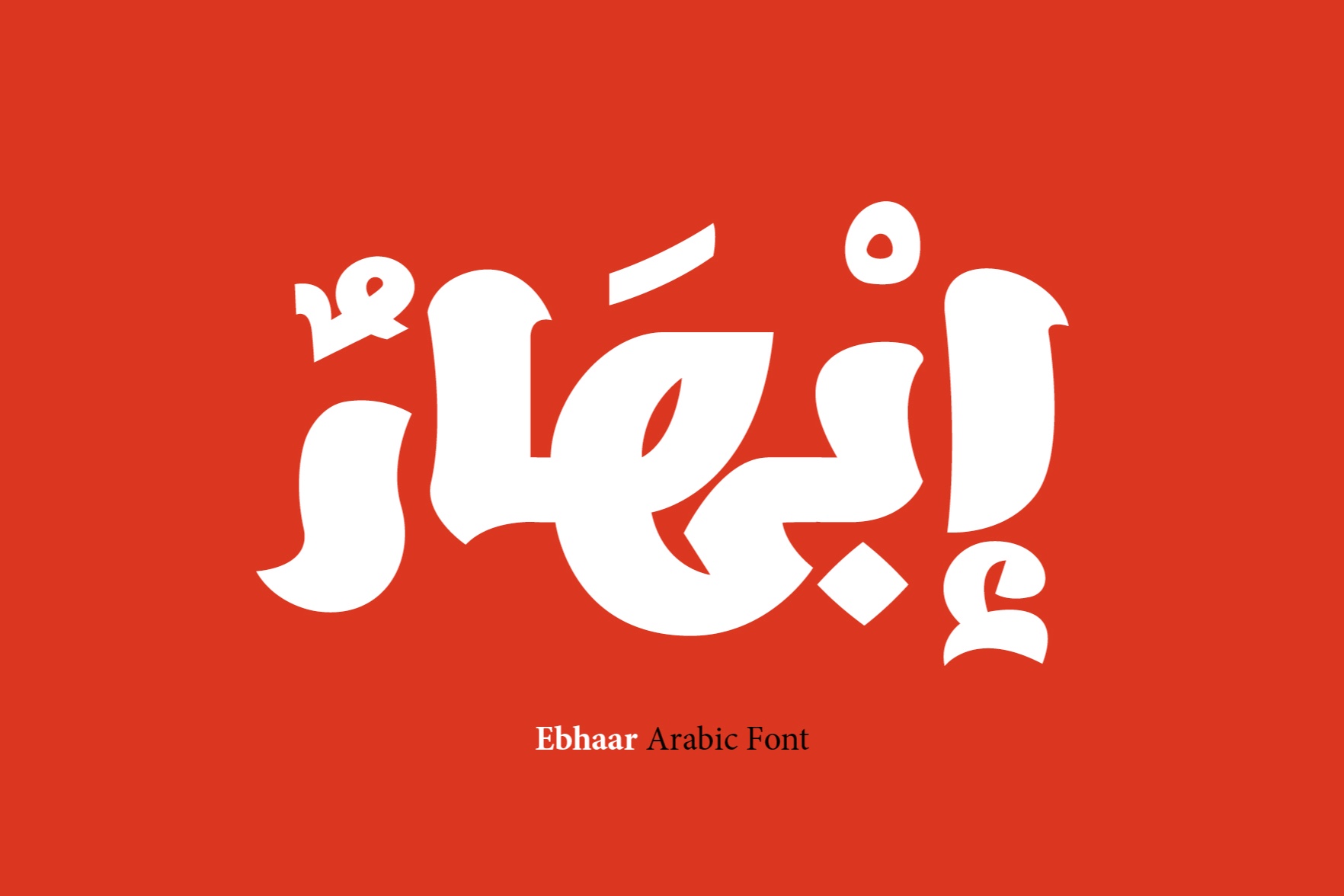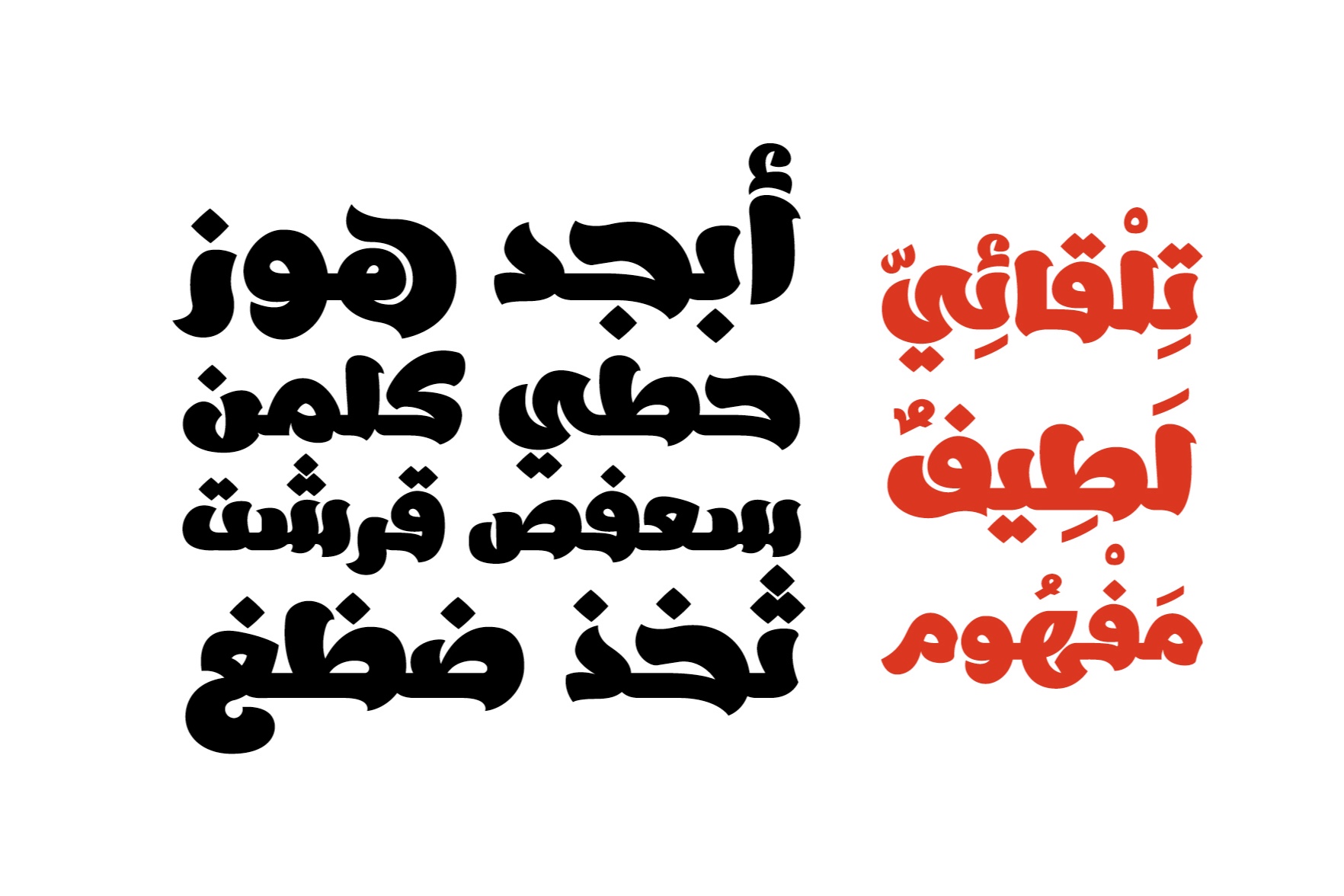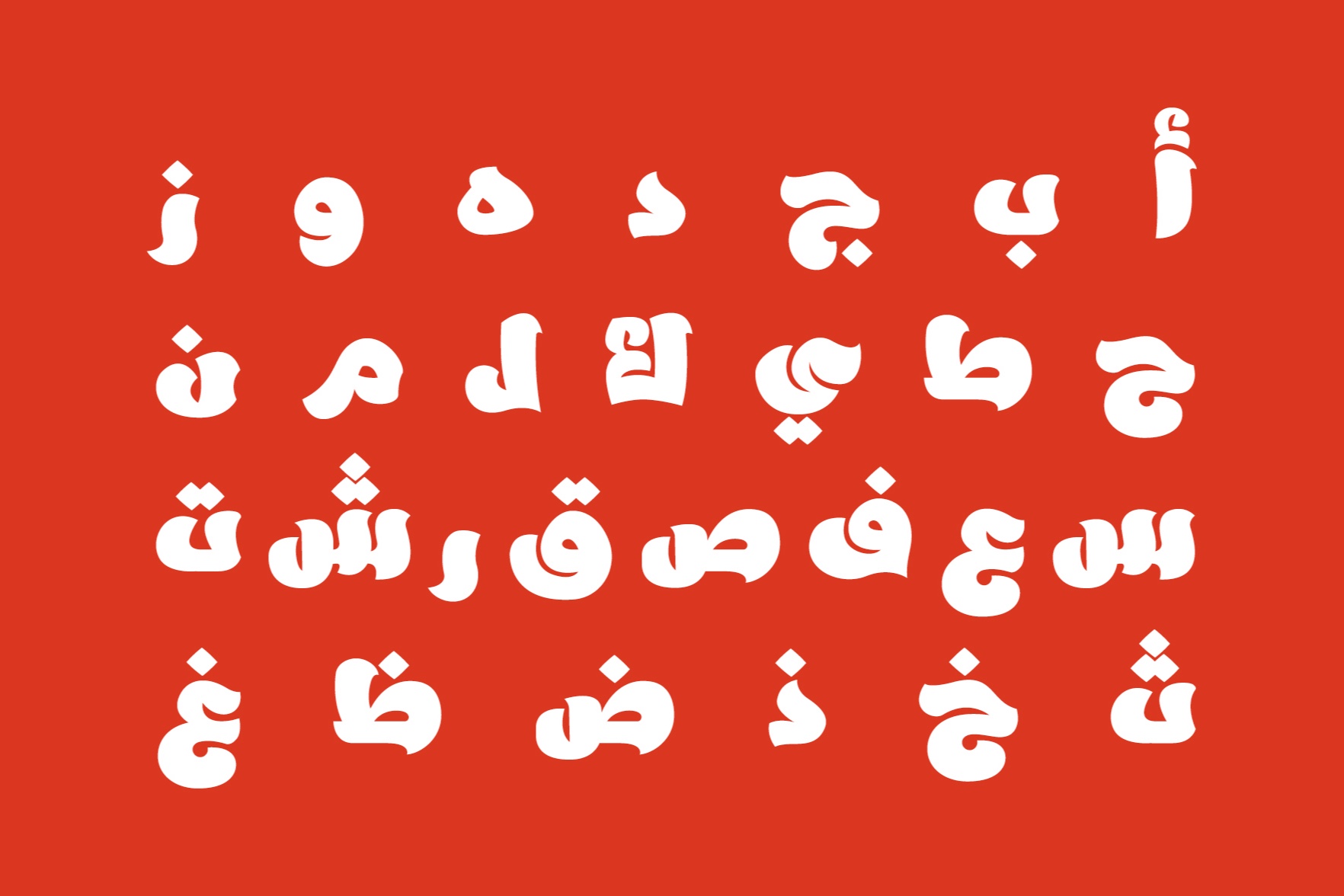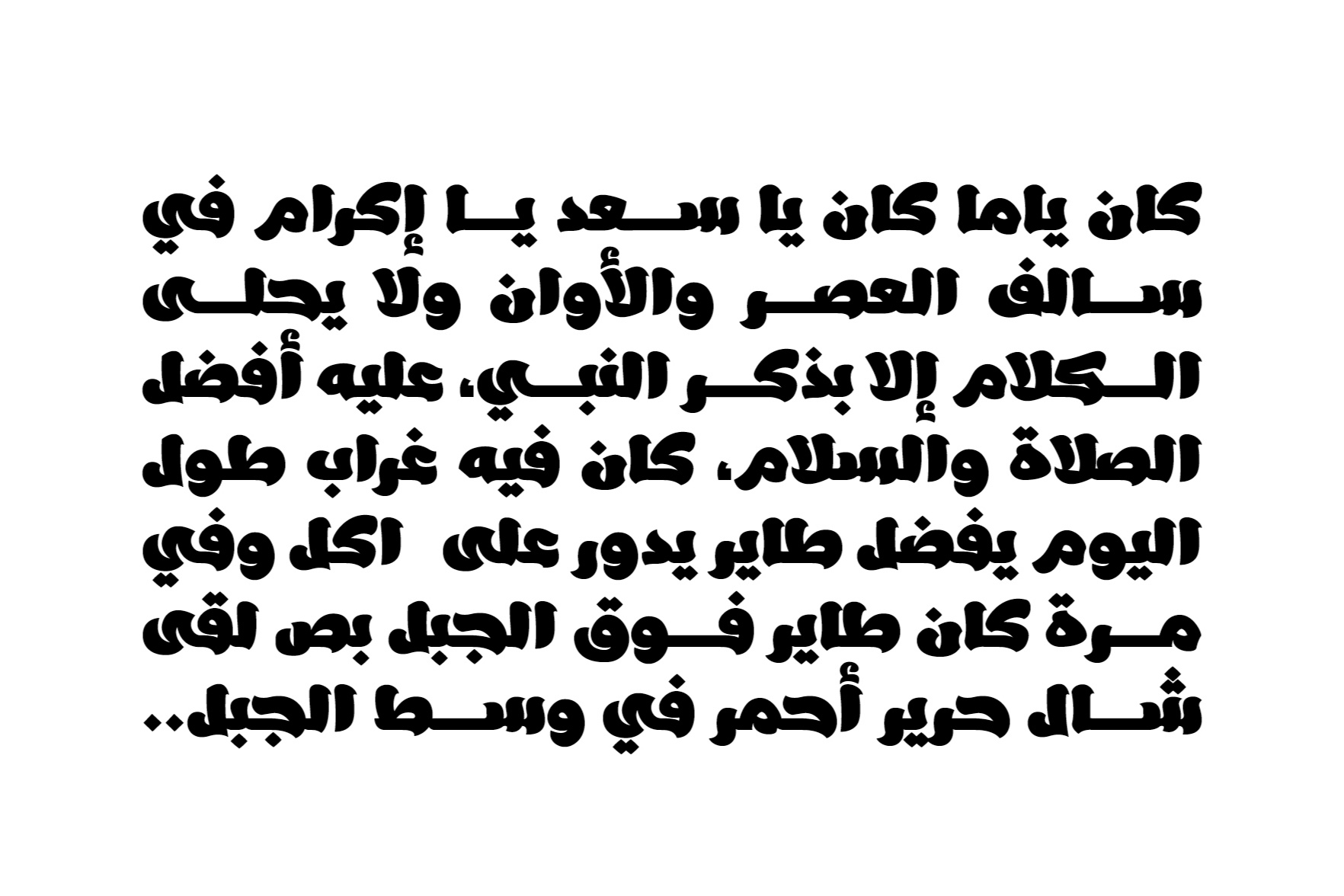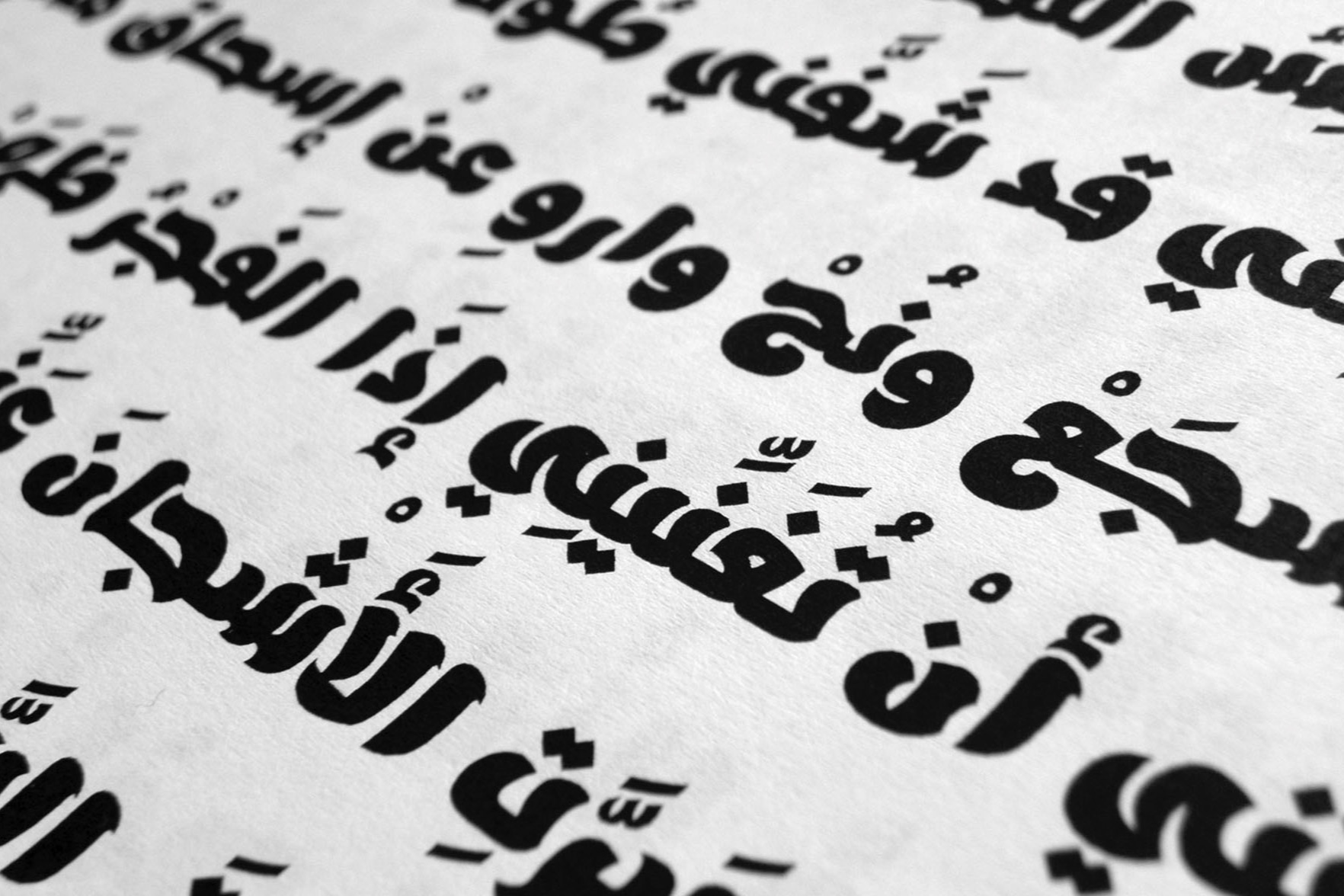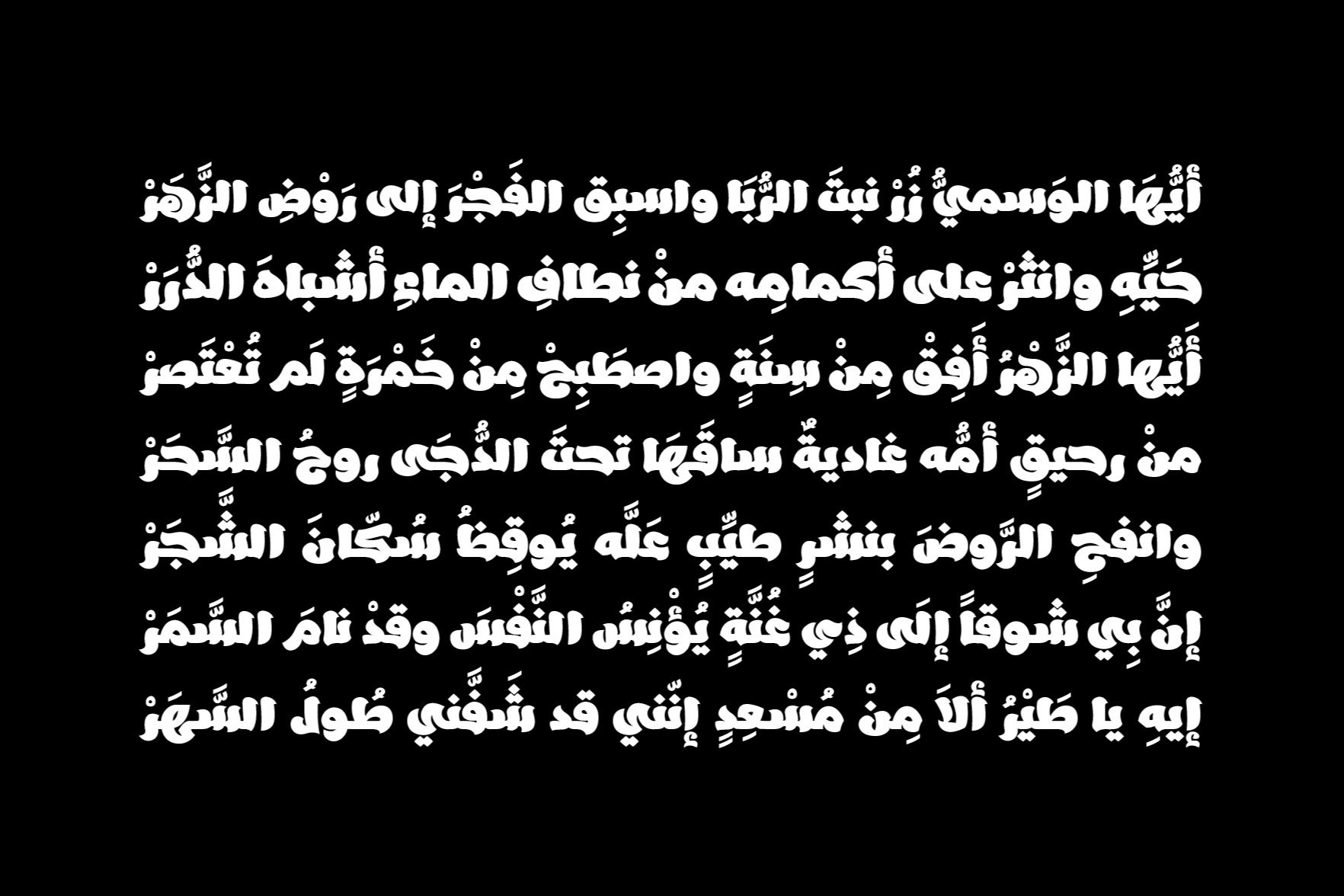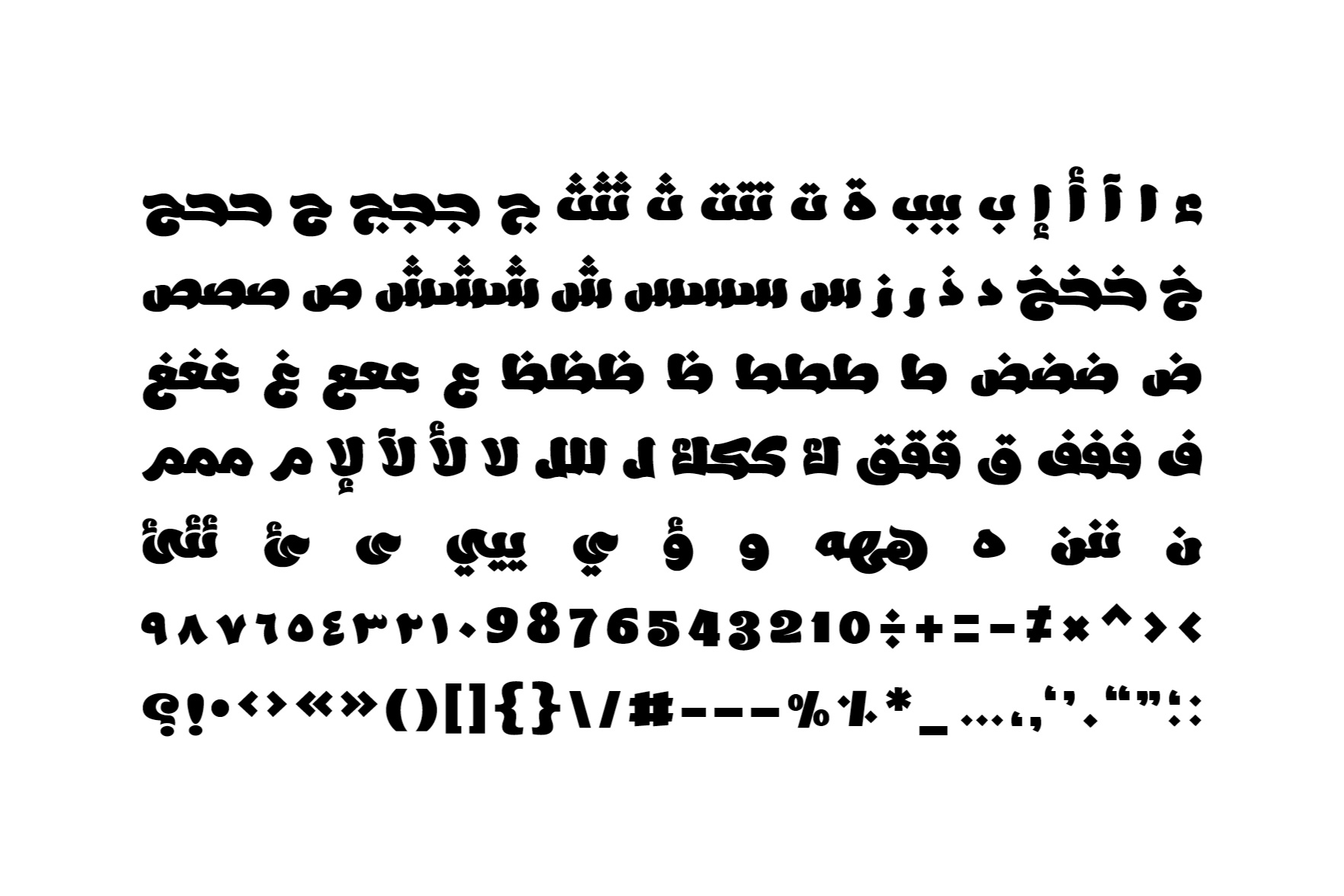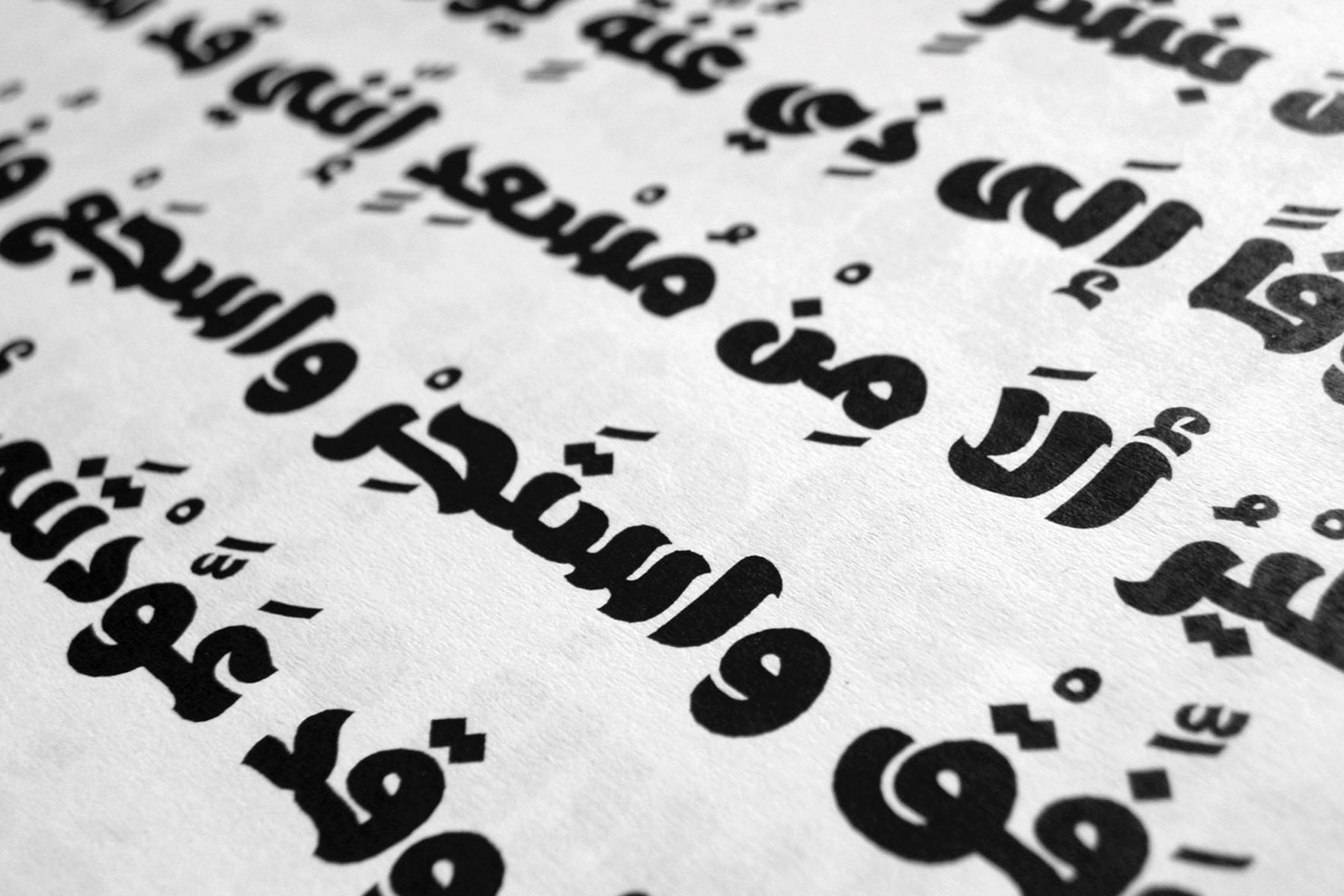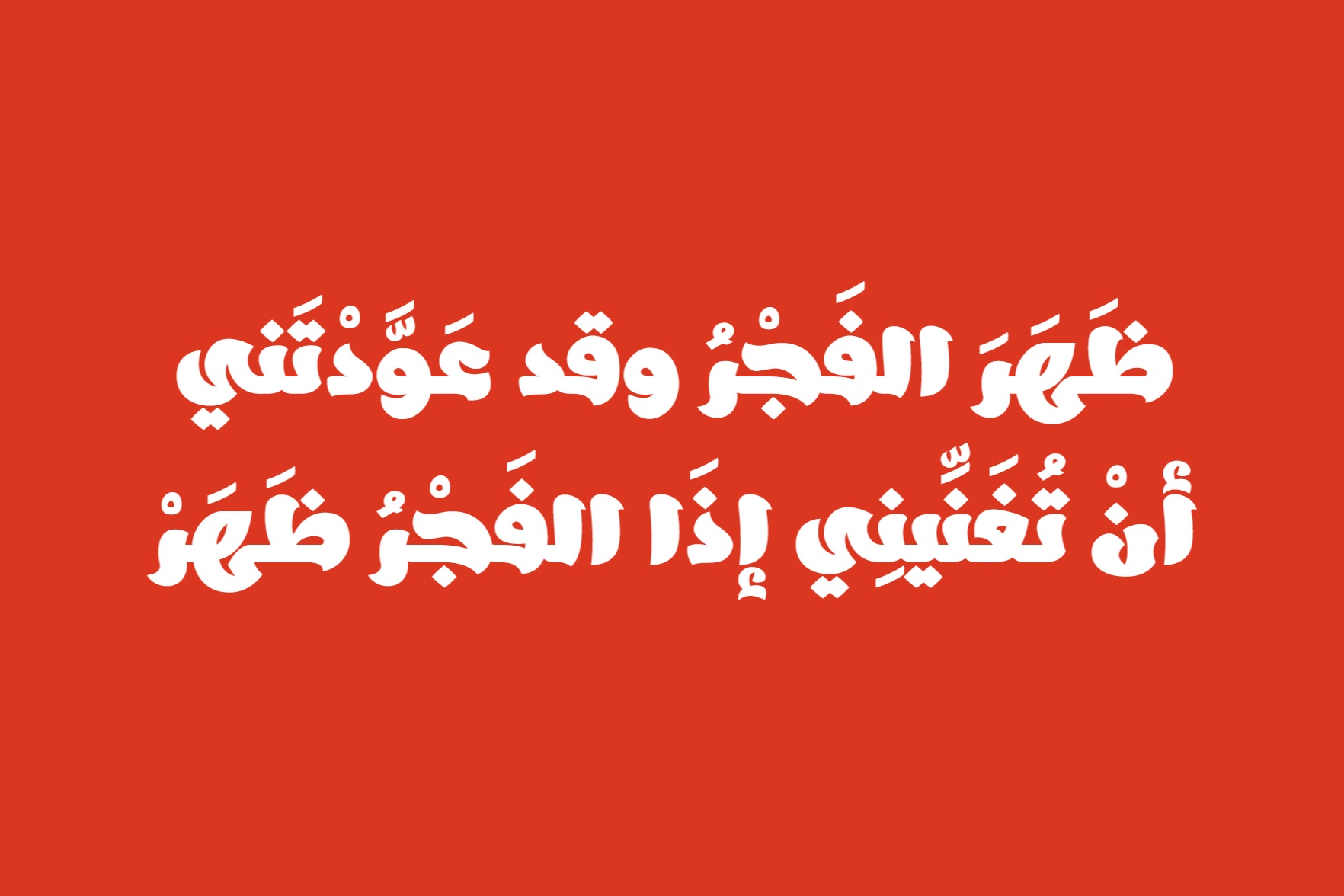
The word ‘Ebhaar’ in the Arabic language literally translates into ‘Dazzle’. Ebhaar is an Arabic display font with a dazzling style that captures the beauty of brush-pen lettering and fuses it with the traditional features of Arabic calligraphy.
300+ Characters
Single style